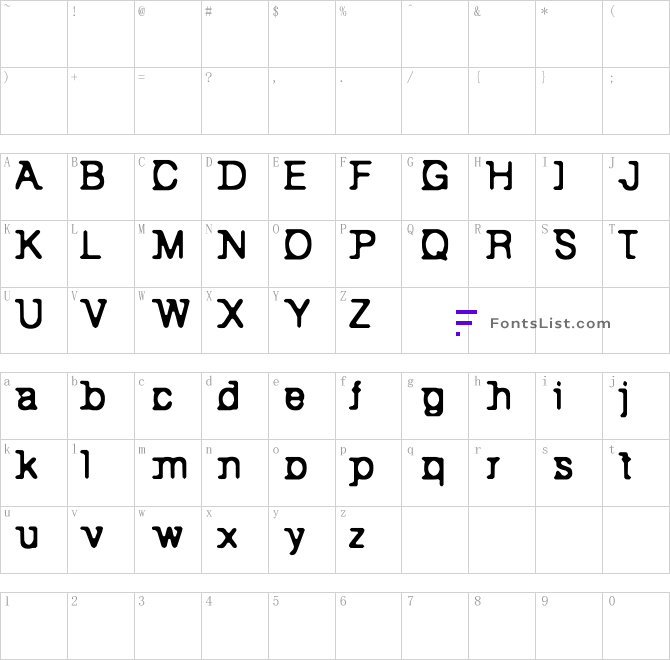
- Font Name:Back to Bay 6
Back-to-Bay-6.ttf is a very beautiful artistic font, Back-to-Bay-6.ttf is widely used in the design and printing of various books and pictures,Back-to-Bay-6.ttf has a strong visual impact,Back-to-Bay-6.ttf is a commonly used font in newspapers, magazines and books, and is used in posters, e-commerce Poster design, store design, logo design, font design and other fields.Back-to-Bay-6.